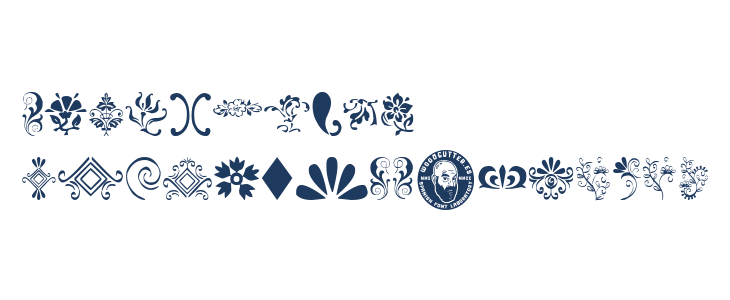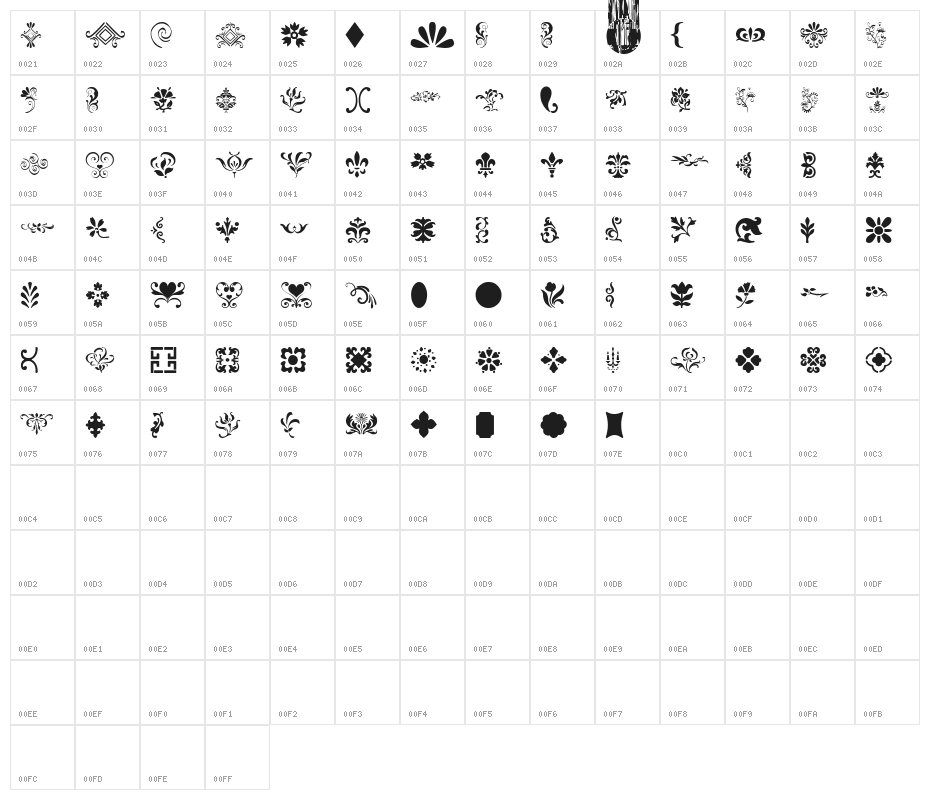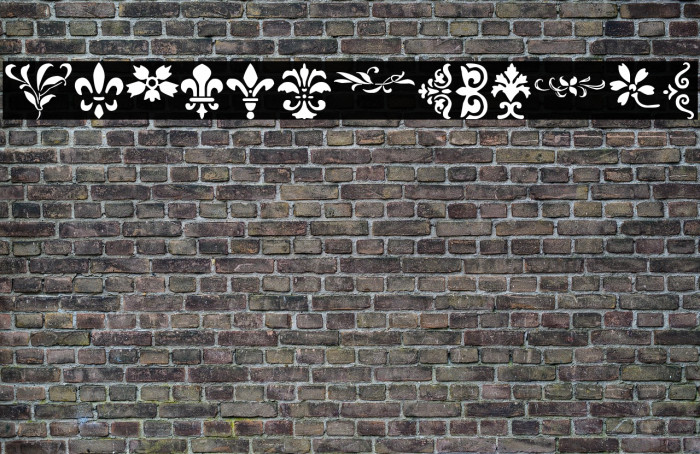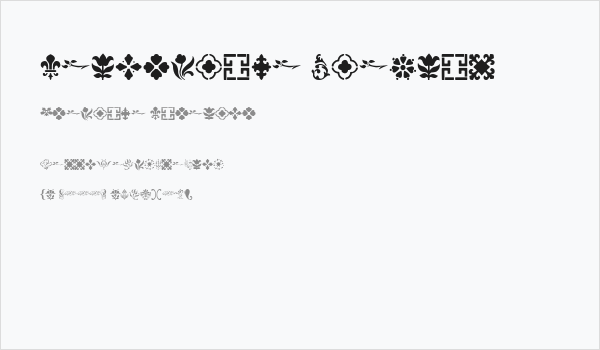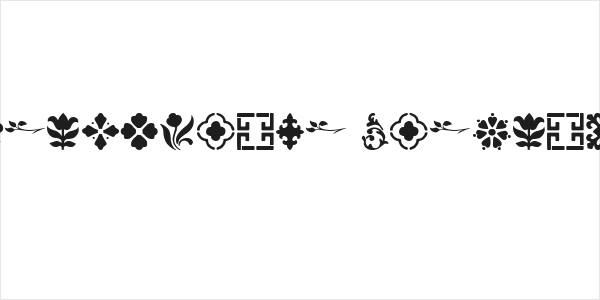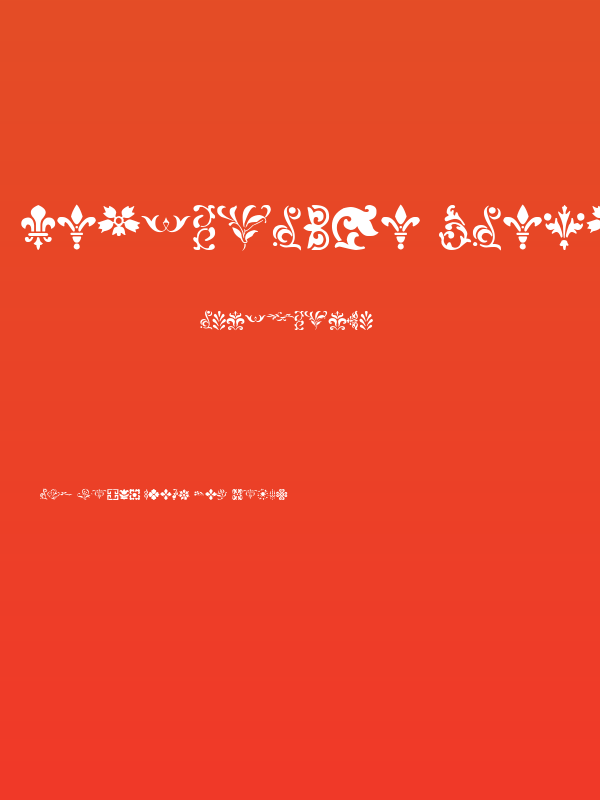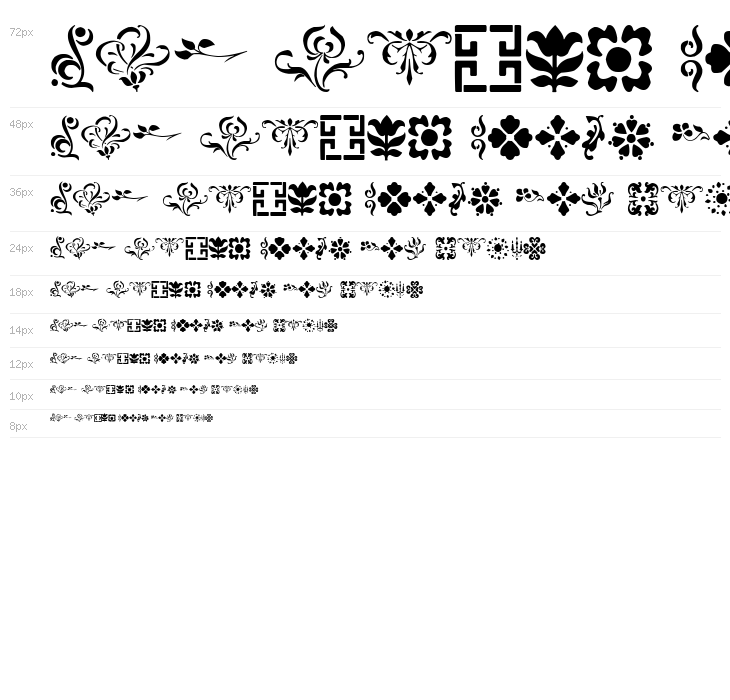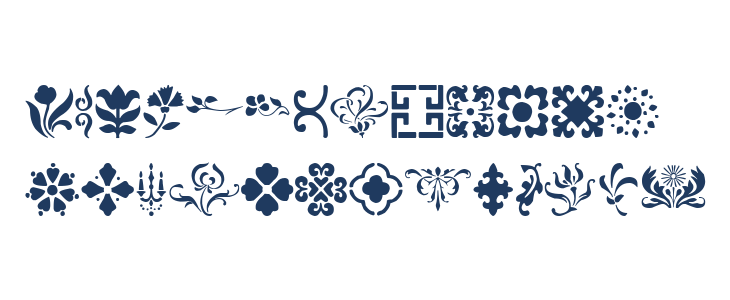
Decorative Stencil Font
Decorative Stencil Description
A collection of ornate, stencil-style decorative glyphs featuring floral, geometric, and ornamental motifs, with bold, high-contrast shapes and intricate details suitable for embellishment.
| Overall Style | Decorative, Vintage, Ornamental |
| Use Case | Borders, embellishments, graphic accents, invitations, certificates. |
| Proposed Projects | Invitations, certificates, borders, packaging, vintage posters, decorative dividers. |